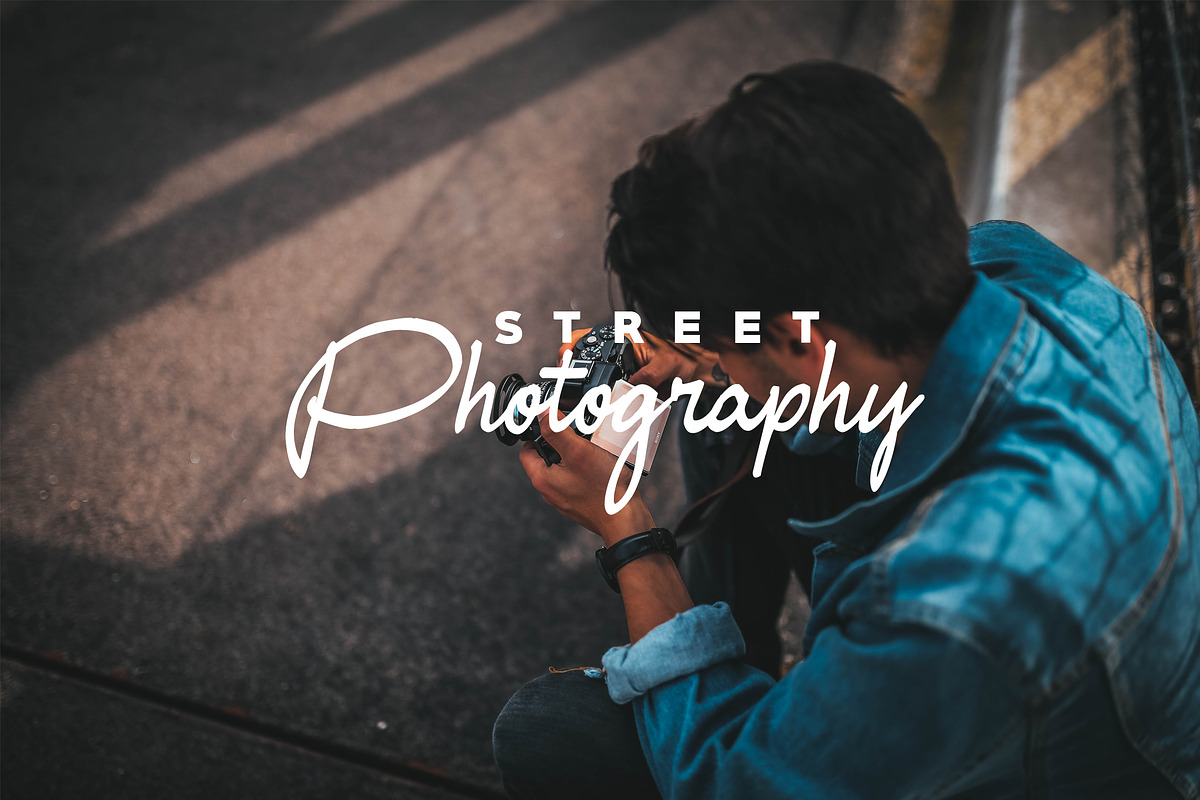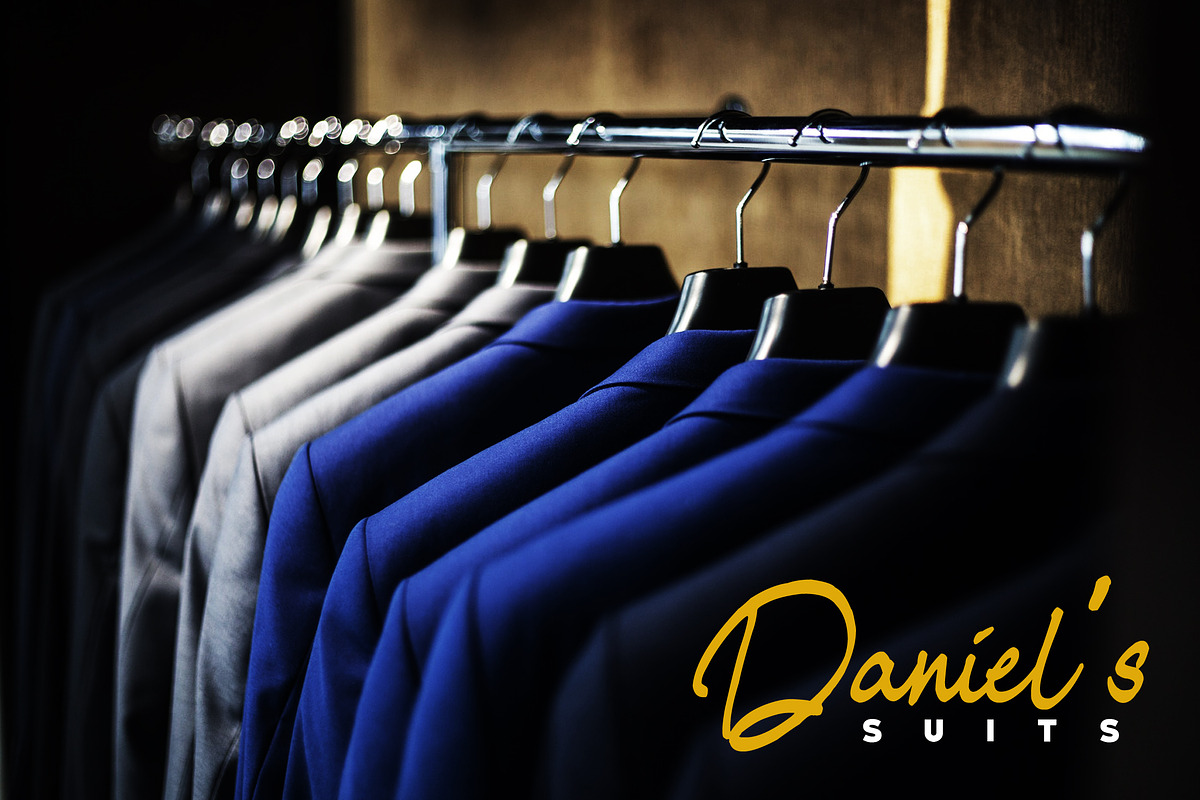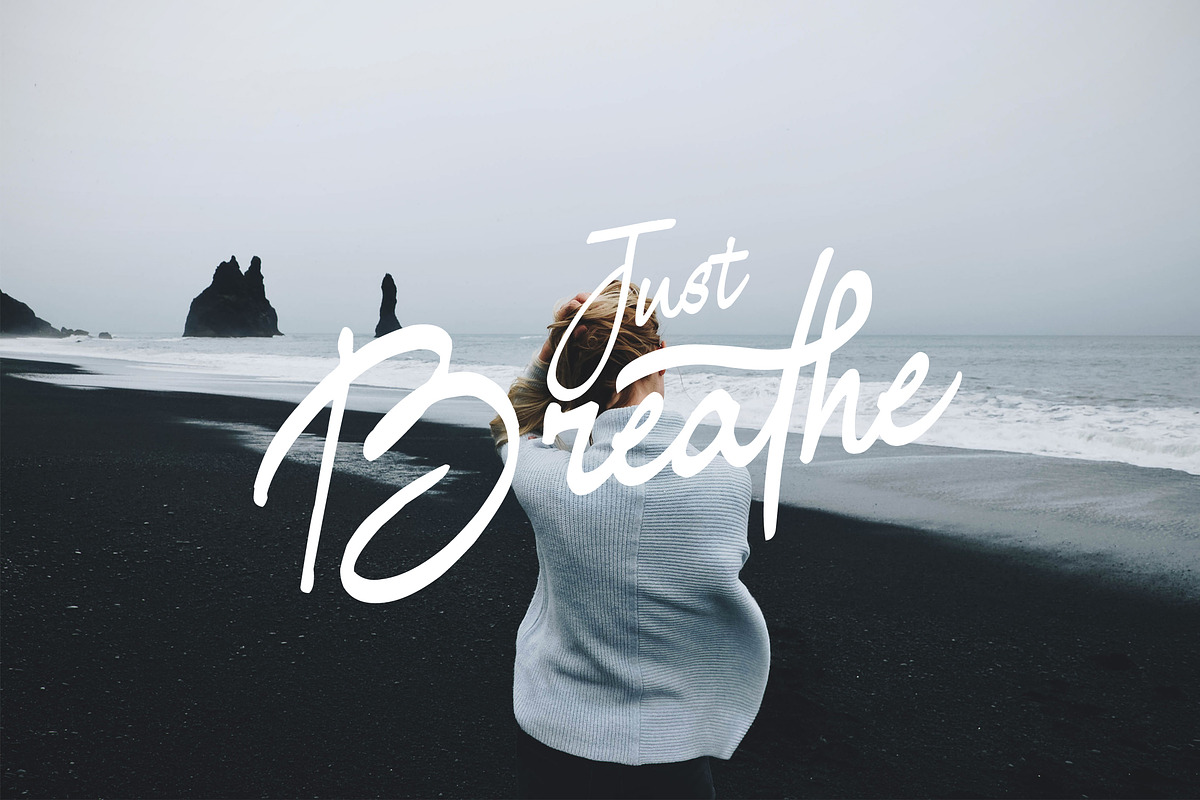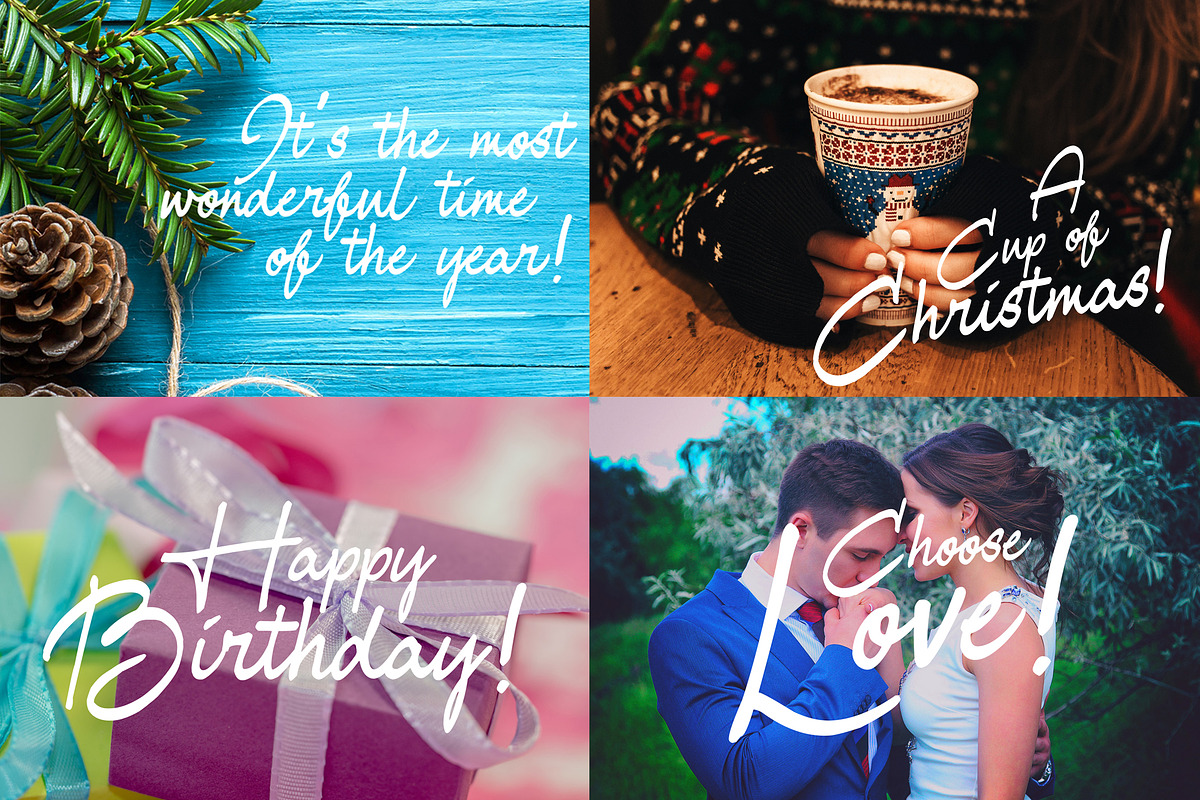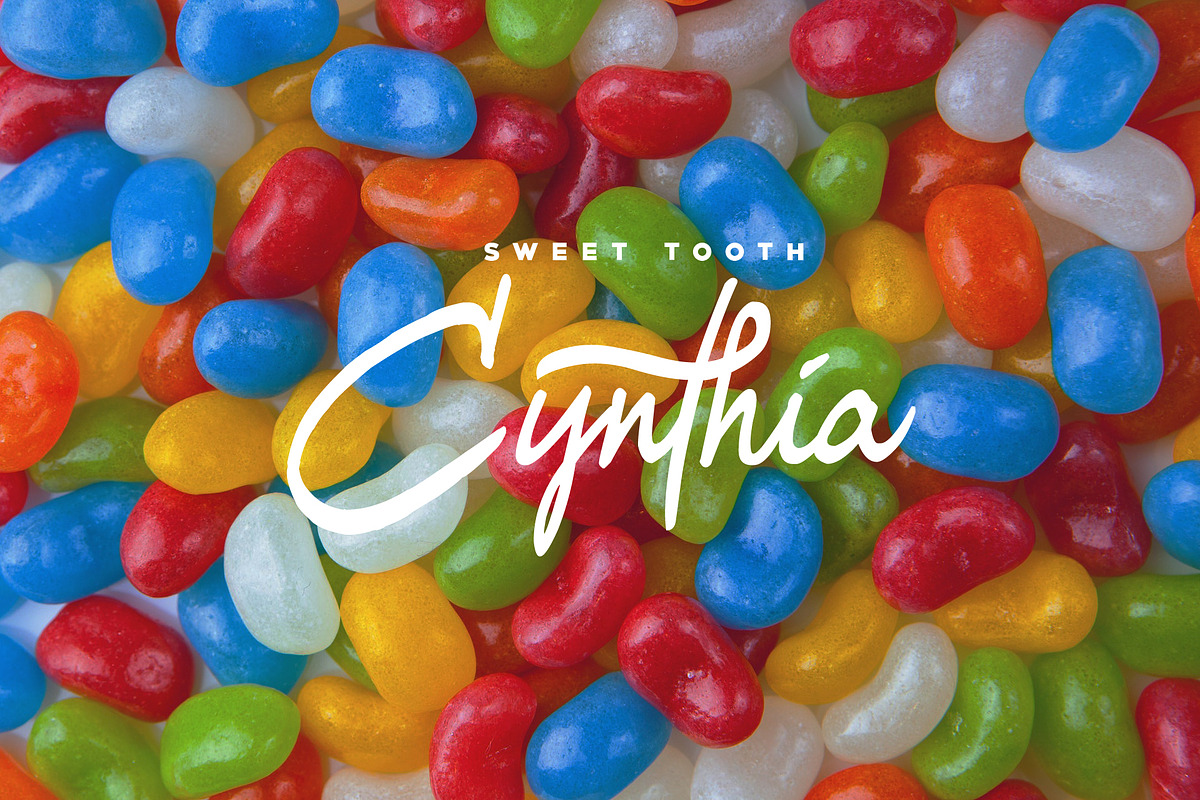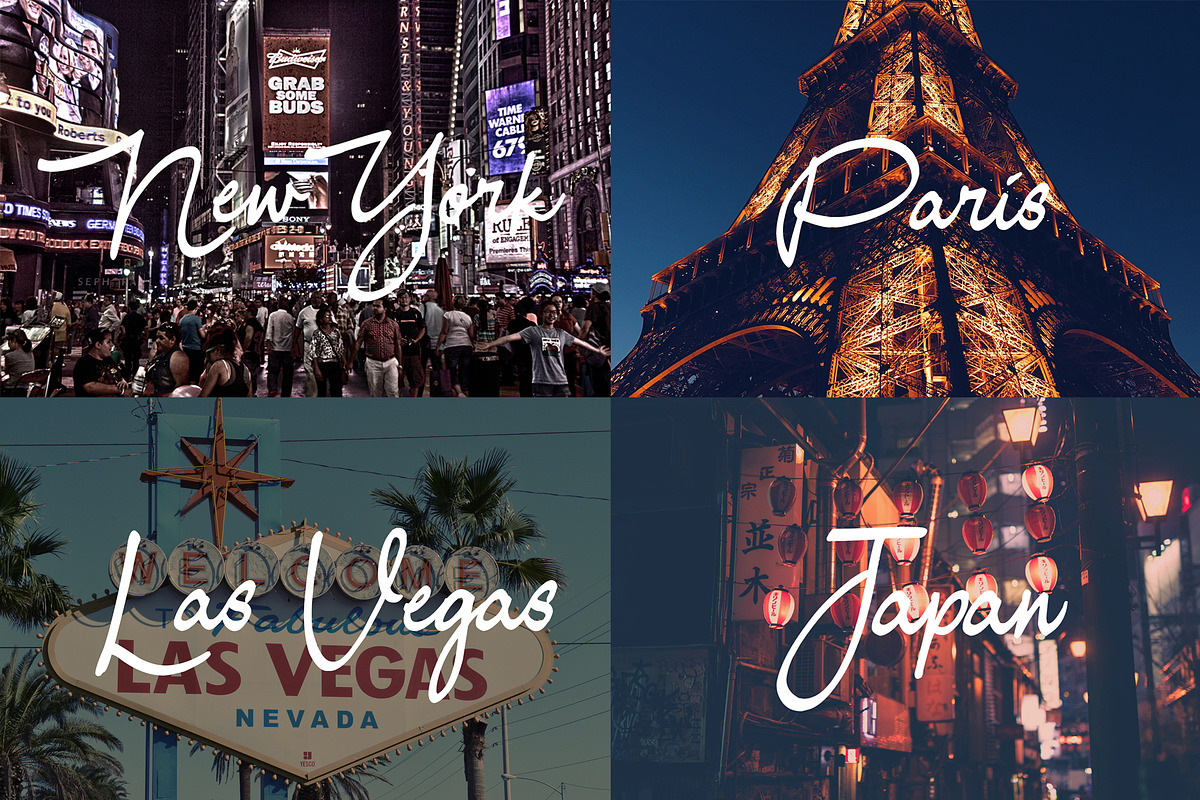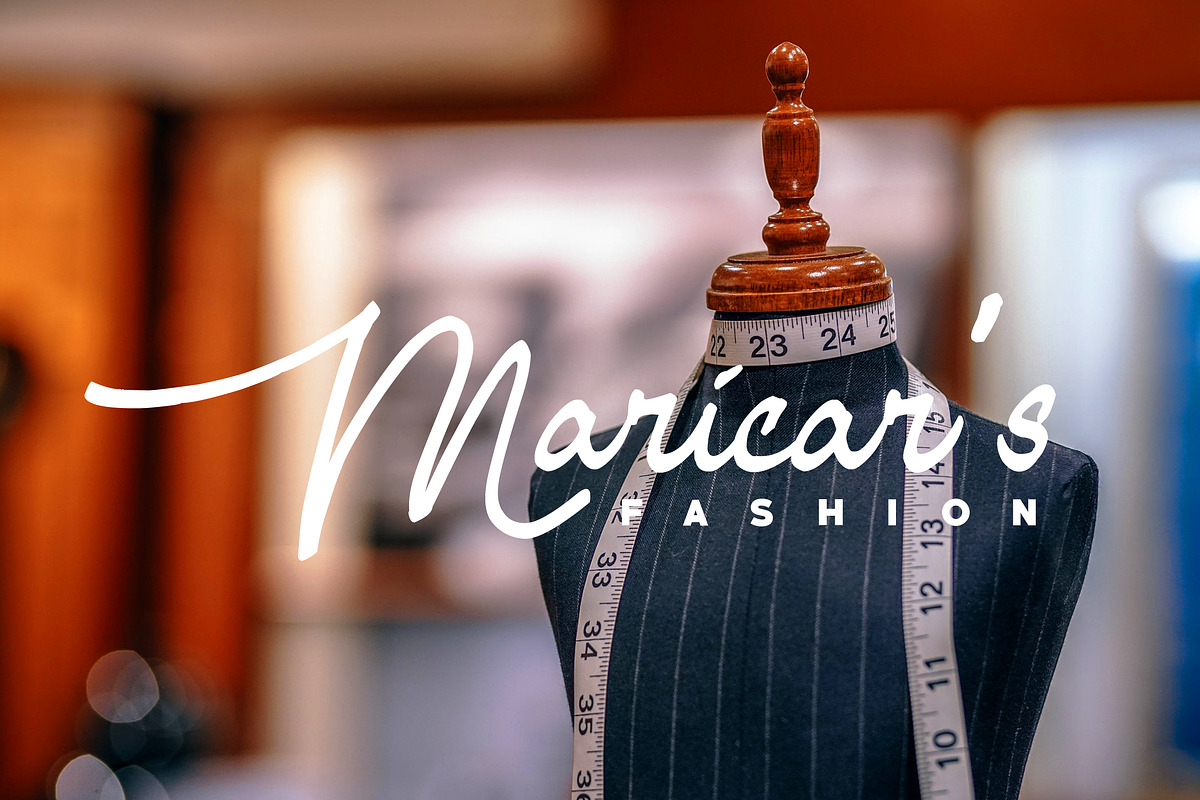
Samantha Font
This time, it's Samantha.
Samantha is your new feel-good font for your next project! Samantha is carefully handwritten and inked to achieve that calligraphy style you are looking for. The style of a feminine project will be much classy than the usual. Perfect for your logo, branding, graphic design, video presentations, and everything.
Samantha is the font for all seasons!
To get the ligatures on t, type t1 or t2.